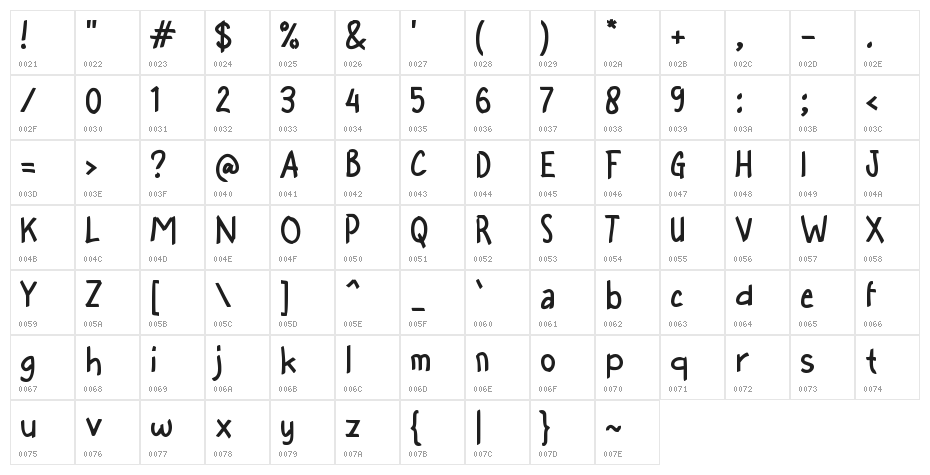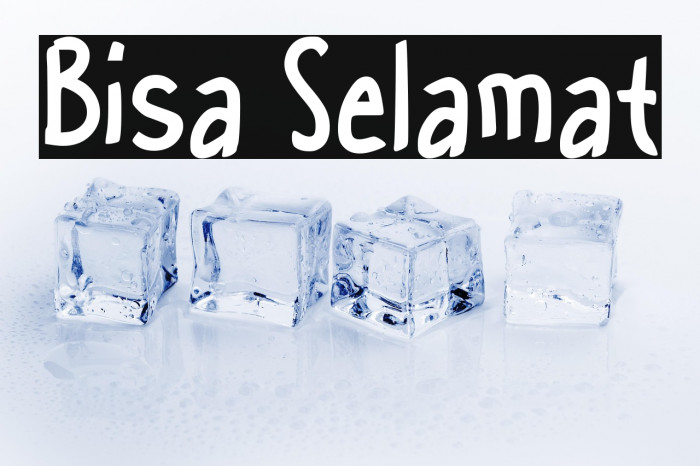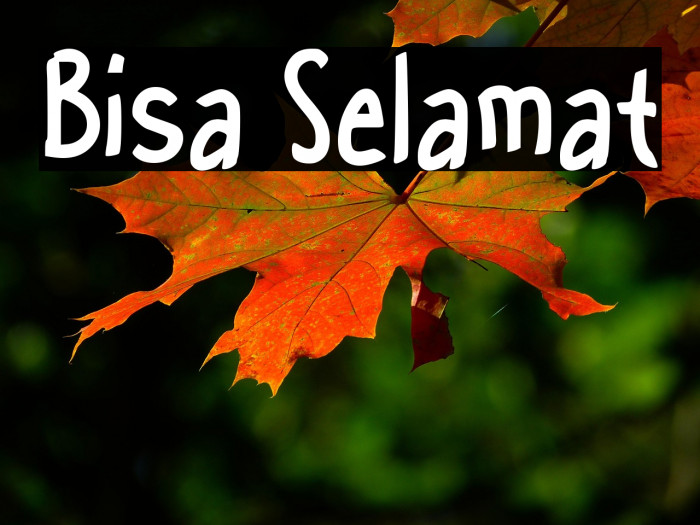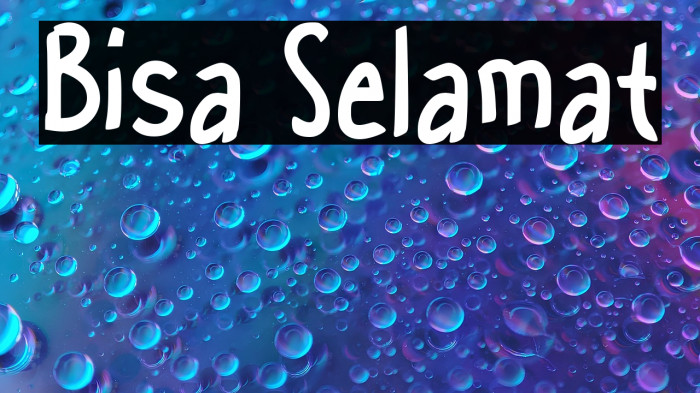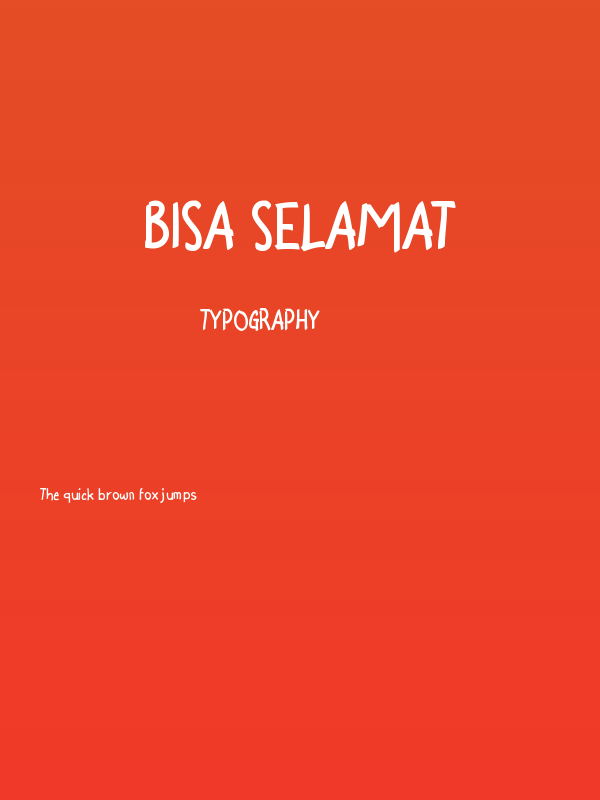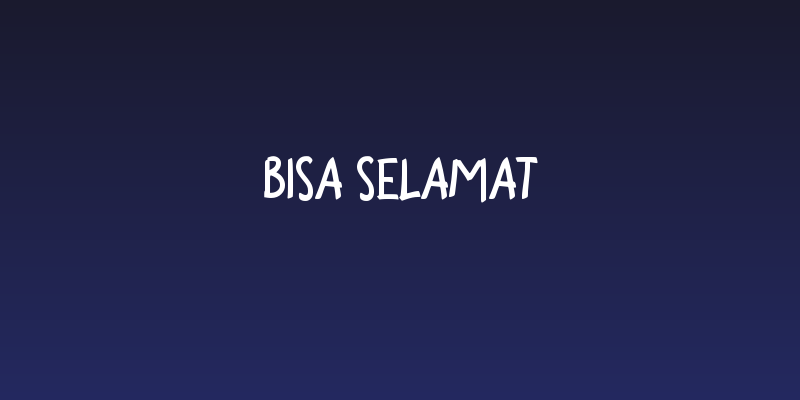
Bisa Selamat Font
Bisa Selamat Description
This playful and informal font features a hand-drawn aesthetic, characterized by its uneven strokes and whimsical appearance. The letters are slightly irregular, giving it a casual and friendly vibe. The uppercase and lowercase letters maintain a consistent style, with rounded edges and a slight tilt, adding to its approachable nature. The numerals and special characters follow the same design principles, ensuring uniformity across all glyphs. This font is ideal for projects that require a personal touch, such as children's books, greeting cards, or playful branding.
| Overall Style | Casual and playful |
| Use Case | Headlines, Logos, Informal text |
| Proposed Projects | Ideal for children's books, greeting cards, playful branding, and informal invitations. |